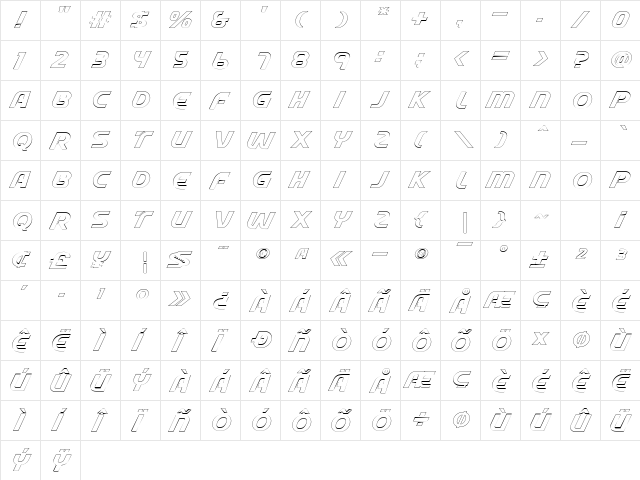
Stable Outline
| Style | Outline |
| Foundry | Kong Font |
| Designer | Kong Font |
Design Context for Stable Typeface
Stable brings ornamental detail and strong personality to headlines and identities, where visual impact matters more than quiet functionality.
Font Pairing: Pair with a clean neutral sans-serif for body copy to let Stable's character lead without overwhelming the composition.
Pro Tip: Use Stable exclusively at display sizes — it was designed to be seen, not read at length. Let a neutral companion handle body copy.